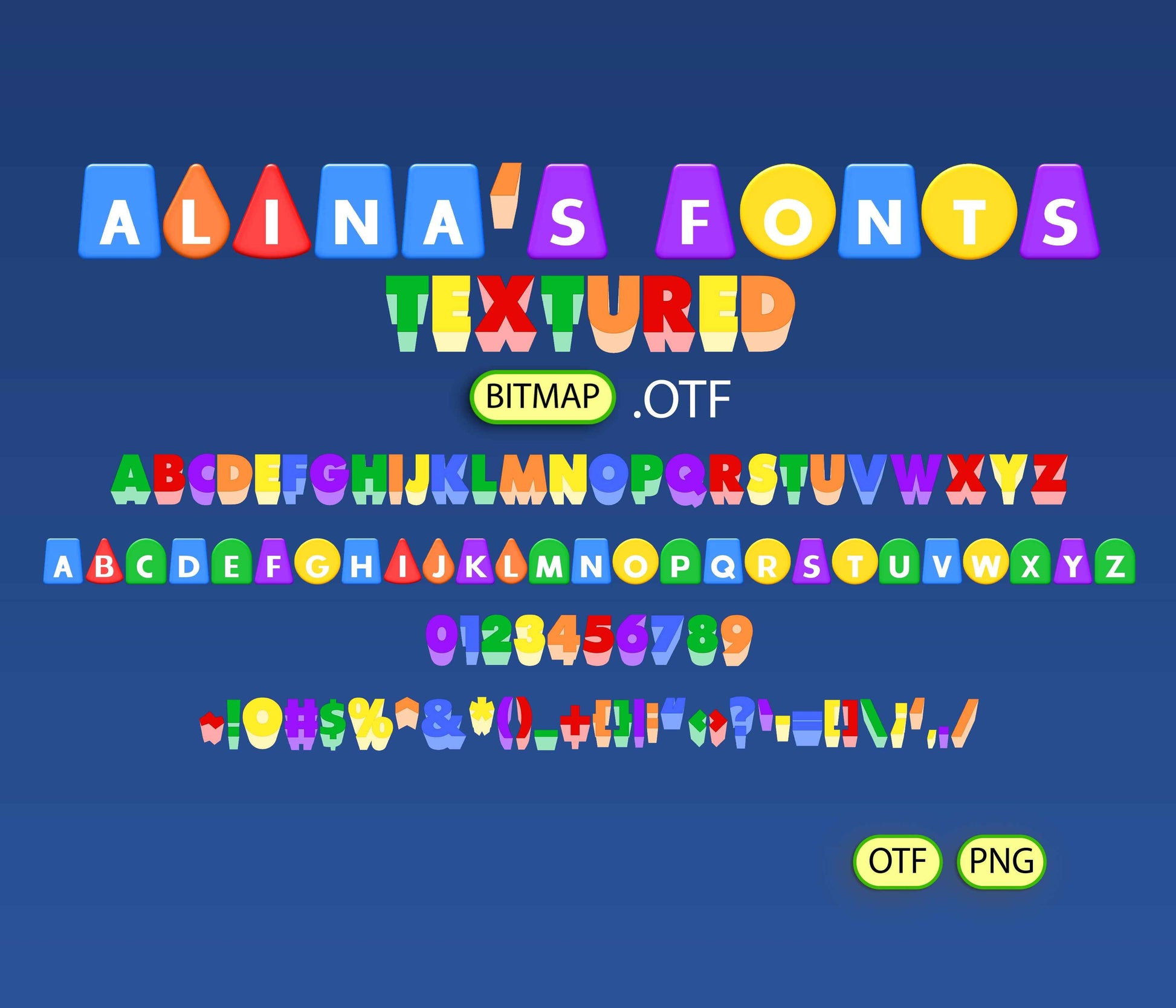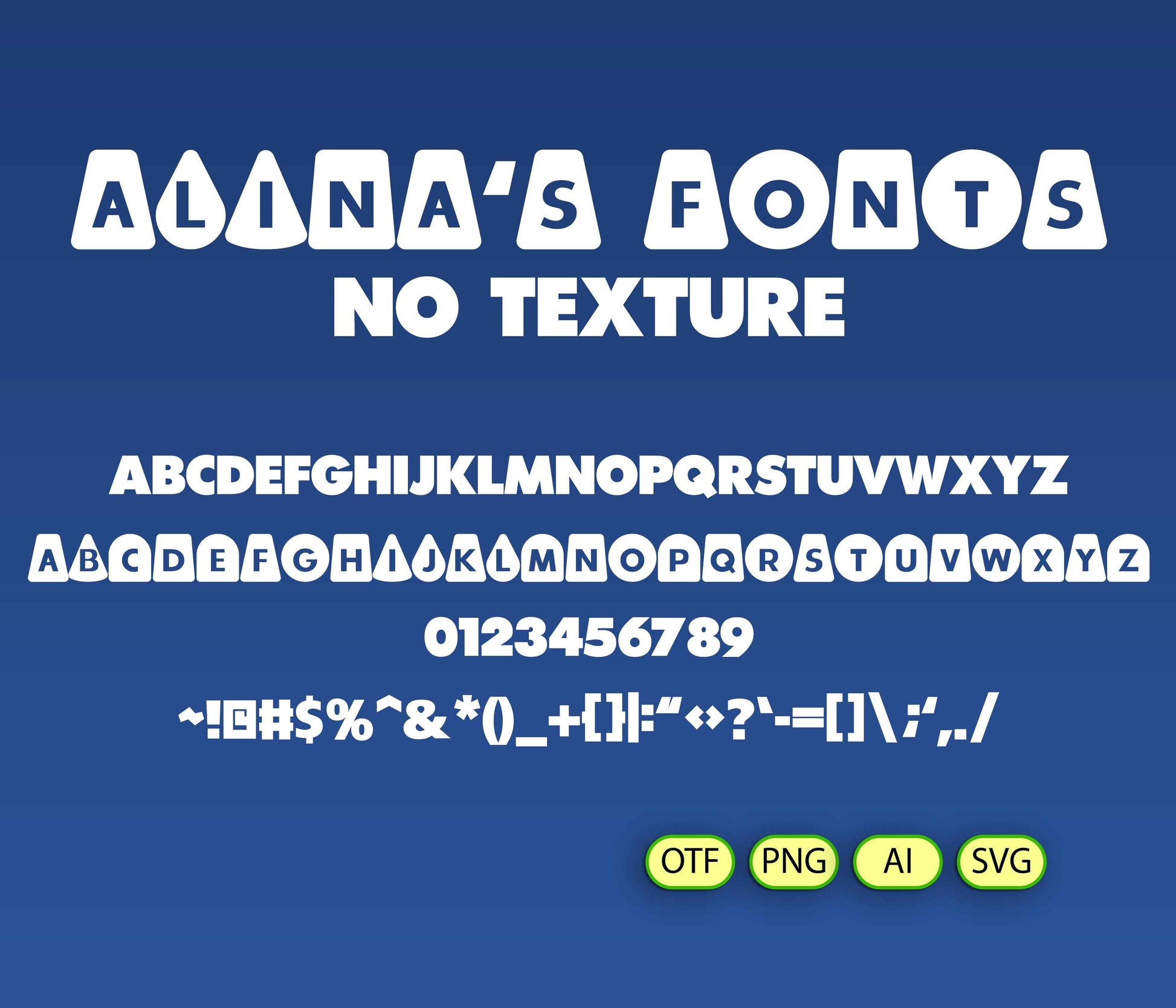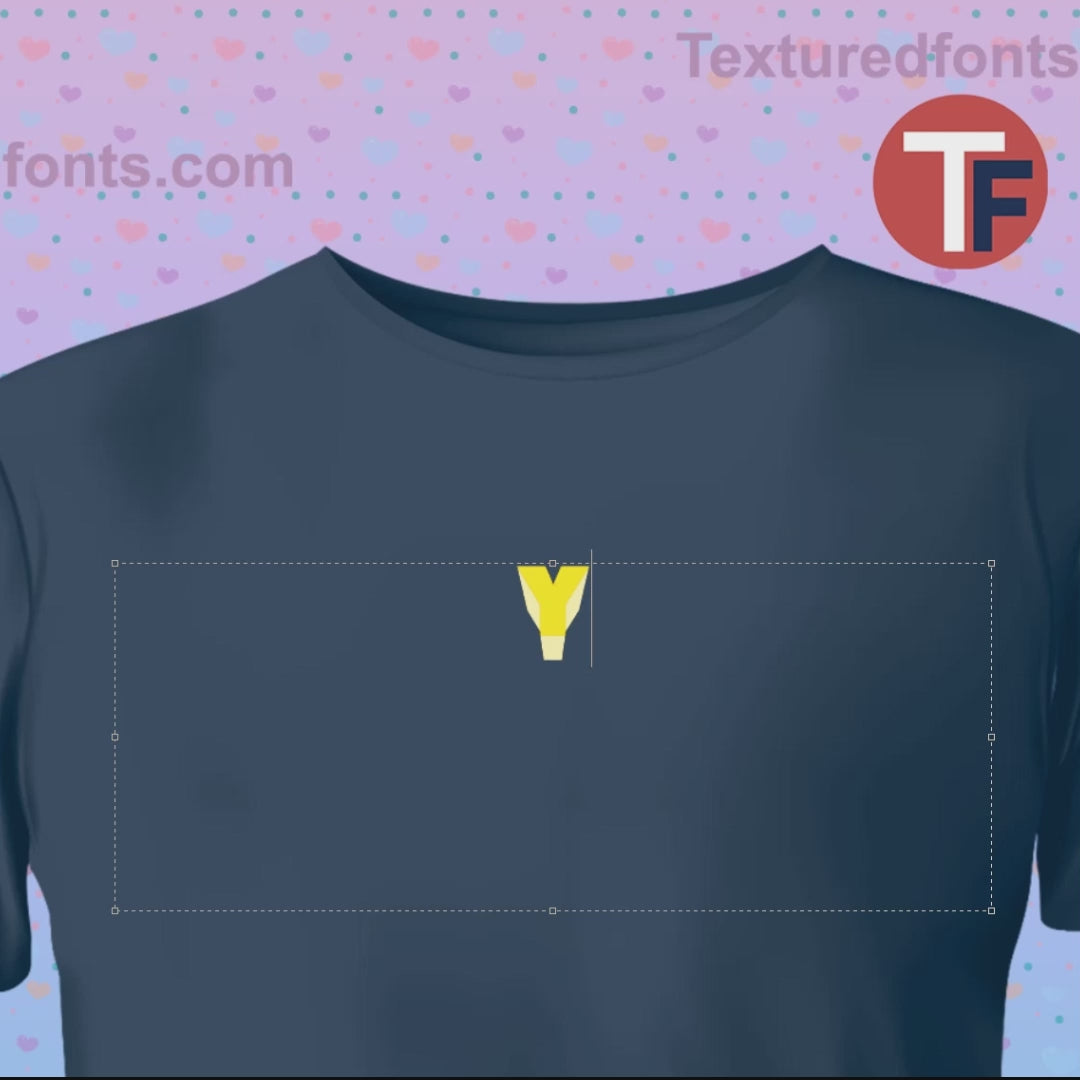
ColorBricks Font Textured
Elevate Your Designs with the ColorBricks-Inspired Font
Inject vibrancy into your projects with our ColorBricks-inspired font, crafted for those adding a dynamic touch to their designs. Ideal for graphic designers, educators, and creatives, this font captures minimalist yet bold color block aesthetics, making it a standout for various applications.
Inspired by color blocking, the ColorBricks font features bold, clean lines and a modular appearance suited for digital and print media. Its geometric structure is visually striking, making it suitable for:
- Branding and Advertising: Eye-catching logos and advertisements.
- Educational Content: Engaging learning materials for all ages.
- Web Design: Clear, readable menus and buttons.
- Event Promotion: Vibrant posters, flyers, and invitations.
- Merchandising: Product packaging and labels that stand out.
To meet diverse design needs, our ColorBricks font includes textured and non-textured variants. The non-textured version ensures compatibility with all design software, including Canva, enhancing its versatility and accessibility for users of all skill levels.
Our ColorBricks font is a tool for transformation, enabling effective and attractive communication in any medium. Whether revamping a website, designing educational tools, or launching a marketing campaign, this font ensures your message is conveyed with style and clarity. Make your designs compelling and memorable with the bold simplicity of ColorBricks!